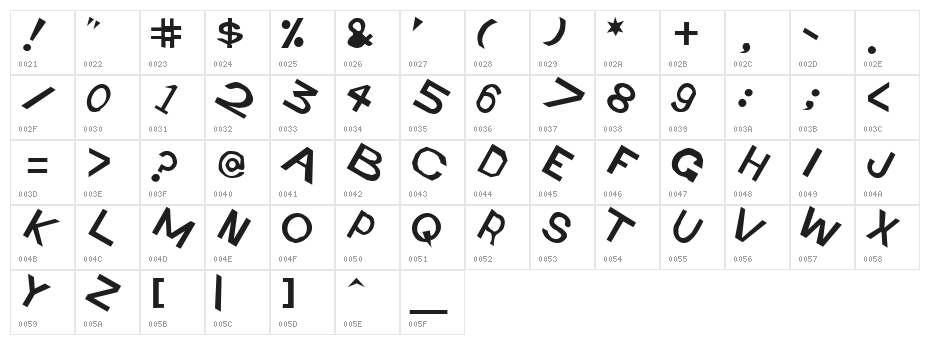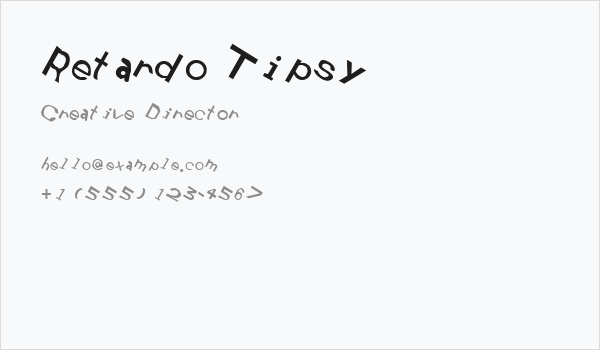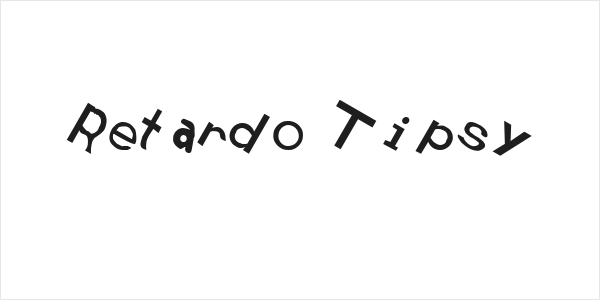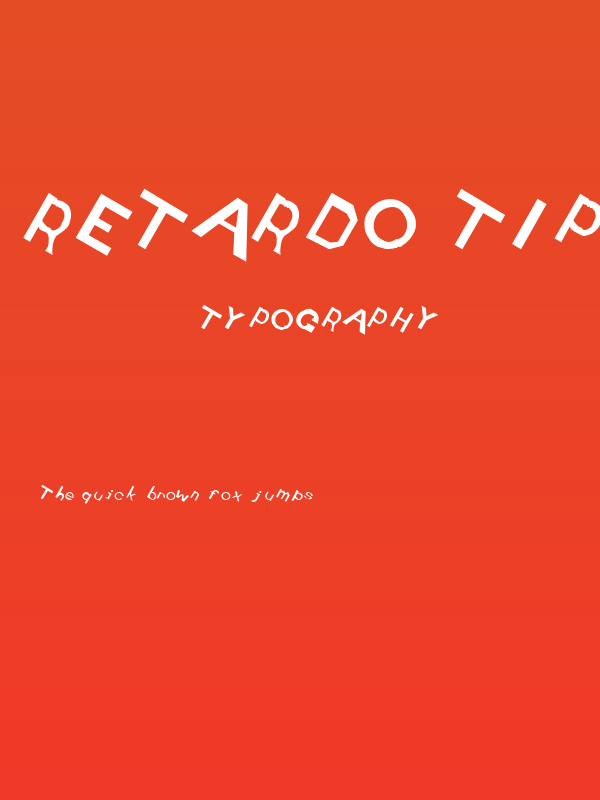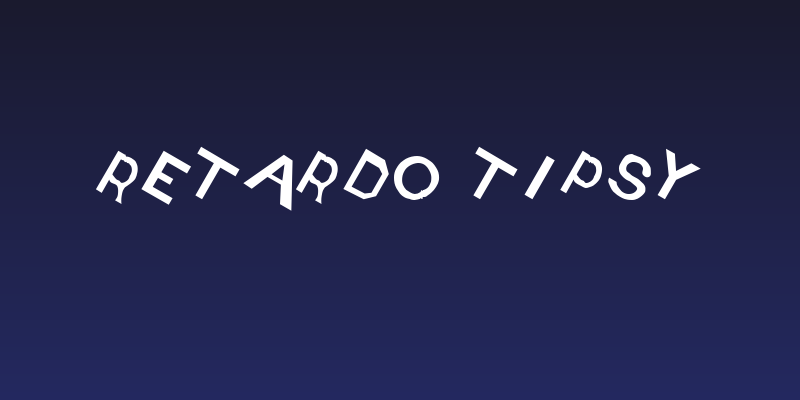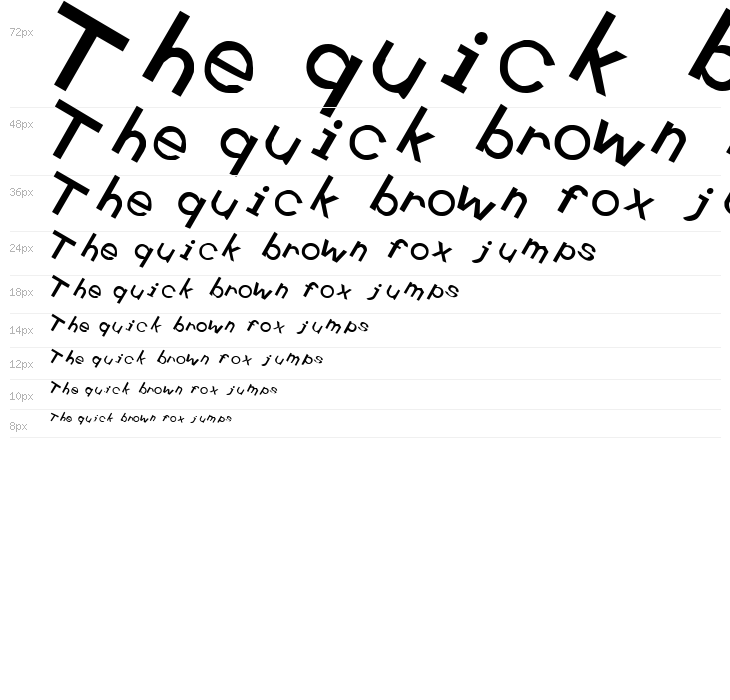
Retardo Tipsy Font
Retardo Tipsy Description
This font features a playful and quirky design with a distinctively tilted and irregular alignment of characters, giving it a whimsical and dynamic appearance. The letters have a bold and thick stroke, with some characters exhibiting unique shapes and angles that add to its eccentric charm. The numbers and special characters follow the same playful style, making the font suitable for creative and unconventional projects. Its bold presence and unique style make it stand out, ideal for capturing attention and conveying a sense of fun and creativity.